The Importance of Fonts in Branding
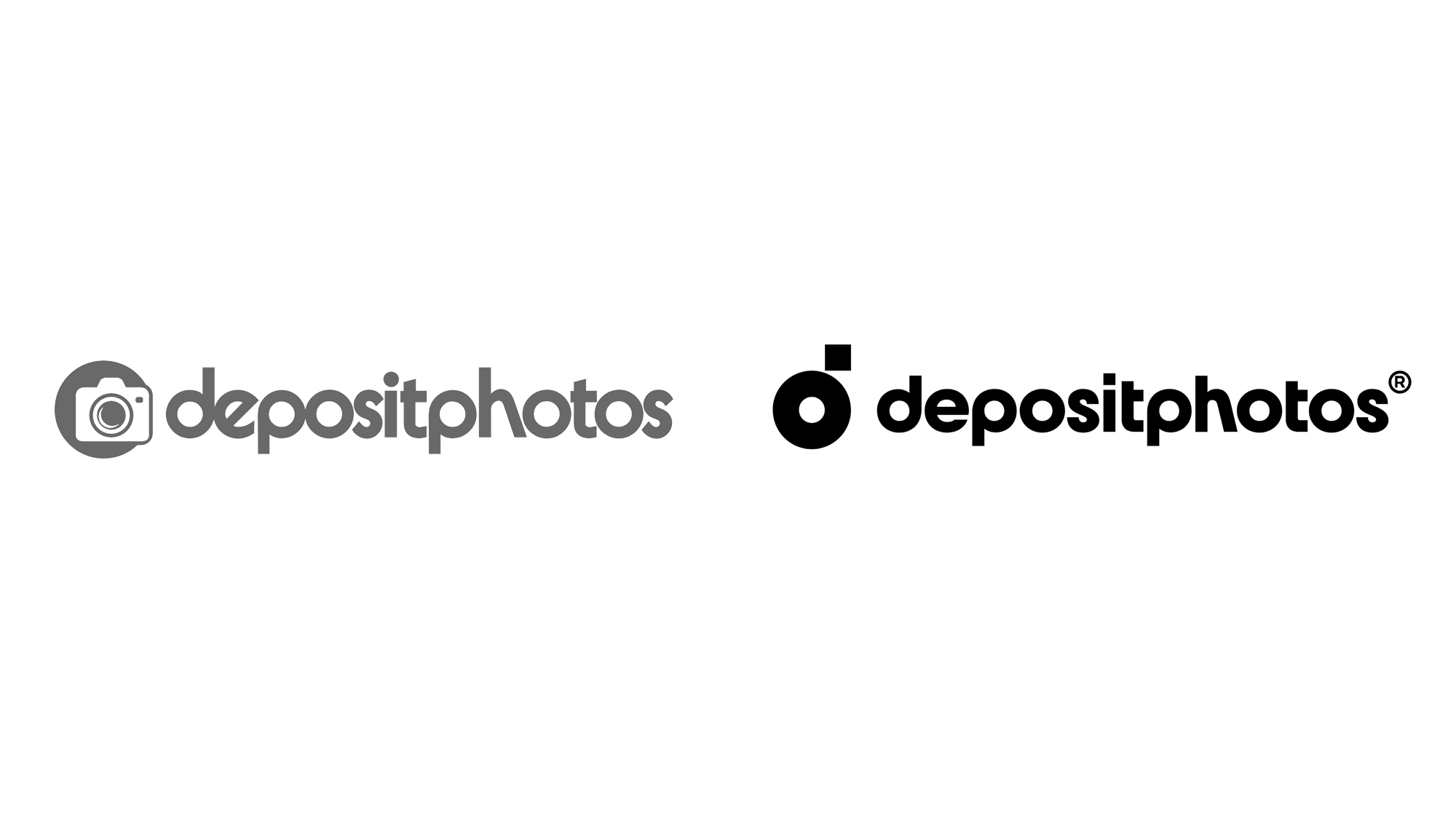
When it comes to branding, the typography you choose speaks volumes about your company’s values, personality, and target audience. Fonts play a crucial role in establishing a brand's identity and can evoke emotions and perceptions that written words alone often cannot. Let's break down why fonts are so critical in branding:
- First Impressions Matter: A well-chosen font can capture attention and create an immediate connection with your audience. Brands like Depositphotos understand that their logo is often the first thing customers notice.
- Consistency is Key: Using the same font across various platforms (website, social media, print) reinforces brand recognition. Consistency helps solidify the brand’s presence in the market.
- Conveys Brand Personality: Fonts can communicate different traits. For example, a playful font suggests creativity, while a sleek sans-serif might convey professionalism and modernity.
Take the Depositphotos logo as a prime example. The font used is clean and modern, portraying a sense of dependability and creativity—qualities that appeal to their target audience of professionals in the design and marketing fields. Here are some elements of font choice that enhance branding:
Element | Impact on Branding |
---|---|
Style | Impacts the mood and tone; serif fonts can feel traditional, while sans-serif fonts often suggest modernity. |
Size | Affects legibility; larger sizes draw attention and establish hierarchy in design. |
Color | Colorful fonts can attract younger audiences, while muted tones may appeal to more sophisticated customers. |
In short, choosing the right font isn’t just about aesthetics; it’s about building a connection with your audience. Brands need fonts that resonate, reflect their identity, and stand out in a saturated market. Depositphotos has masterfully achieved this balance with its unique font choice, allowing it to create a memorable impression that lasts.
Identifying the Font Used in the Depositphotos Logo
When it comes to logo design, fonts play a crucial role, and the Depositphotos logo is no exception. The font used in the Depositphotos logo is a clean, modern sans-serif typeface, which reflects the brand's commitment to clarity and professionalism. But how do you identify a specific font used in a logo?
To pinpoint the exact font, designers often look for unique characteristics. The Depositphotos logo features:
- Geometric forms: The letters have a balanced and consistent appearance, with rounded edges that soften the overall look.
- Uniform stroke width: This uniformity aids in creating a sense of harmony within the logo, making it easily recognizable.
- Slightly condensed letters: This adds a touch of elegance and helps the logo fit well in various applications without losing legibility.
If you’re trying to recreate this look or find a similar font, consider looking into popular sans-serif typefaces like Montserrat, Open Sans, or Raleway. These fonts share similar traits, including clean lines and modern characteristics, making them excellent alternatives for branding or design purposes.
For those who prefer a more precise approach, tools like WhatTheFont can be incredibly helpful. Simply upload an image of the logo, and the tool scans it to identify the closest font match. While it may not always give a perfect result, it’s a good starting point for finding similar typefaces or understanding the characteristics that define the logo.
Design Elements of the Depositphotos Logo
The design of the Depositphotos logo is more than just the font; it combines several elements that contribute to its overall impact. Let's break down some key components that make this logo effective and memorable.
- Color Palette: The Depositphotos logo primarily features a vibrant orange with contrasting elements. Orange is often associated with creativity, enthusiasm, and energy, which aligns perfectly with the brand's mission of providing creative assets. The use of orange also helps the logo stand out in a crowded marketplace.
- Simplicity: One of the standout features of the Depositphotos logo is its simplicity. In today’s world, less is often more, and this logo embodies that principle. The straightforward design makes it versatile and easily recognizable across various mediums, from digital platforms to print materials.
To ensure effective logo design, consider the following design elements along with typography:
Element | Importance |
---|---|
Color | Colors evoke emotions and convey messages about the brand's personality. |
Shape | Shapes can symbolize values and create visual balance. |
Size | Size can influence perception, with larger logos often seen as more authoritative. |
In summary, effective typography, combined with other design elements, plays a vital role in crafting logos that resonate with audiences and elevate brand identities.